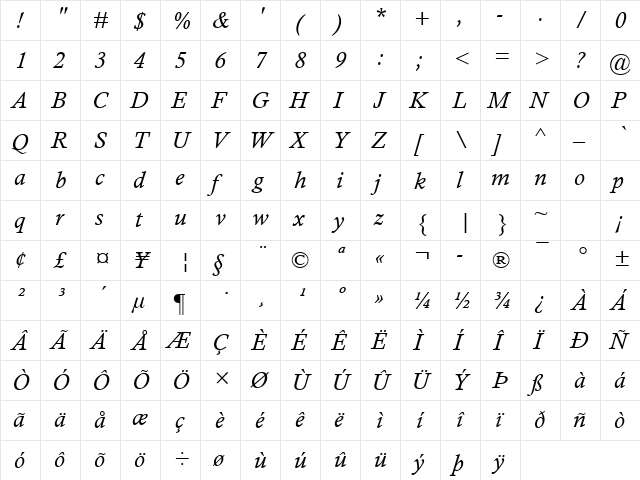
Calisto MT Italic
Design Context for Calisto MT Typeface
Calisto MT takes a measured approach to typography — its balanced proportions and neutral character make it a reliable workhorse for both digital and print work. The dynamic lean of this cut emphasises speed and emphasis in any layout.
Pro Tip: Try Calisto MT for annotation and caption copy alongside an upright companion — the contrast in angle creates a dynamic but ordered typographic system.